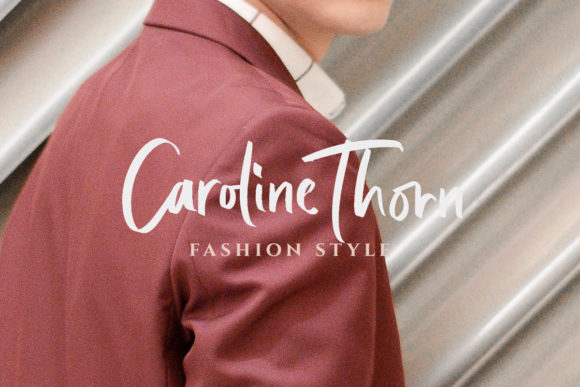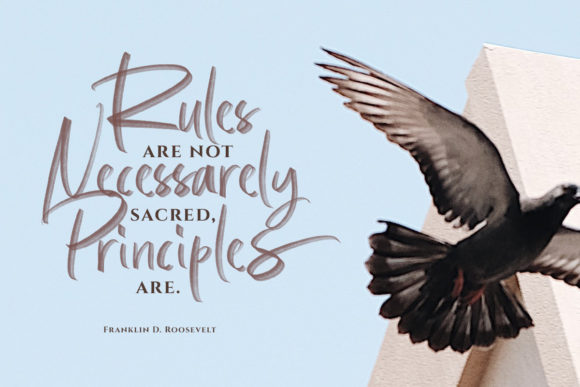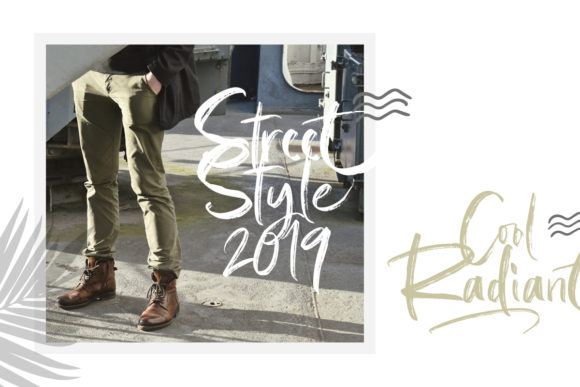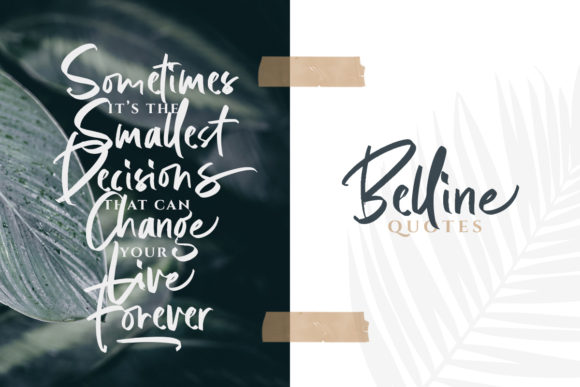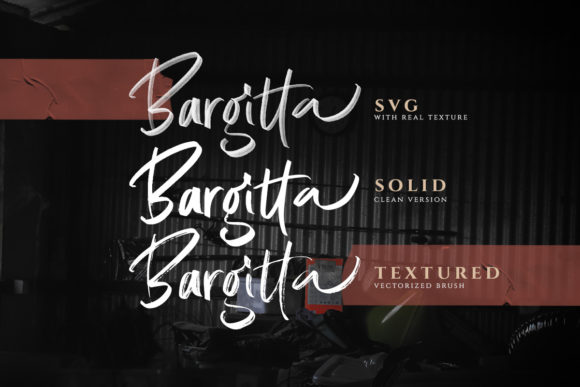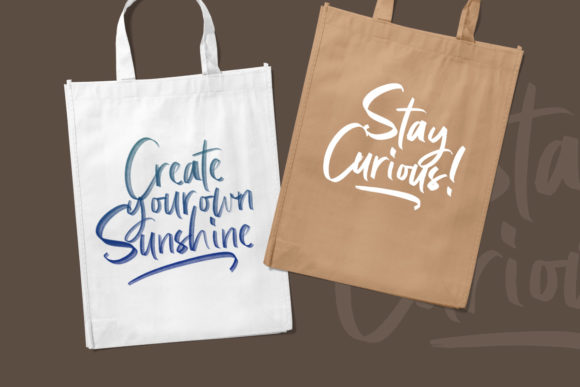
Get Ready to Fall in Love with the Quirky Charm of Bargitta Script Font
Do you ever find yourself lost in a world of scribbles and sketches, brainstorming ideas for your next creative project? It’s in these moments of pure inspiration that the right font can make all the difference. Imagine having a font that captures the whimsy and playfulness of your thoughts, bringing them to life in a way that’s both elegant and charming.
Enter the Bargitta Script Font – a beautiful, handwritten display font with flowing curves and varied baseline. This enchanting font is perfect for designers looking to add a touch of personality to their designs. Whether you’re working on a logo, invitation, or social media campaign, Bargitta Script Font is sure to bring a smile to your face and inspire your creativity. With its unique charm, this font is a valuable addition to any designer’s toolkit.
- Unique Characteristics: Bargitta Script Font features a unique, handwritten style with elegant and flowing lines, making it perfect for adding a personal touch to designs and documents.
Bargitta Script Font Review
I recently had the chance to work with the Bargitta Script Font, and I have to say, it’s a beautiful addition to any design project. ✨
- The elegant, handwritten feel is perfect for creating a warm and inviting atmosphere.
- The script font is highly customizable, making it easy to adjust the weight, size, and style to suit your design needs.
- The font is highly legible, even at smaller sizes, which is a must for any font.
However, I did encounter a few limitations while working with the font. ⚠️
- The font can be quite dense, which may make it difficult to read at very small sizes or in certain colors.
- The script style can sometimes make it difficult to distinguish between similar-looking letters.
Overall, I think the Bargitta Script Font is a great choice for any designer looking to add a touch of elegance to their project. With a little care and attention, it can be a real showstopper. ✨
The Bargitta Script Font is ideal for:
– Book covers and literary works
– Personalized gifts and stationery
– Any design project that requires a touch of elegance and sophistication
Experiment with different font sizes, colors, and styles to create unique and eye-catching designs.
– Use the font in combination with other elegant fonts for a cohesive look.
– Adjust the font spacing and alignment to optimize readability.
– Use the font for headings and titles to create visual hierarchy and emphasis.
Q: Are there any font pairing suggestions for the Bargitta Script Font?
For optimal results, pair the Bargitta Script Font with a clean, sans-serif font, such as Open Sans or Lato, for body text. This combination creates a beautiful balance between elegance and readability. You can also experiment with other serif fonts, such as Georgia or Merriweather, for a more classic look.